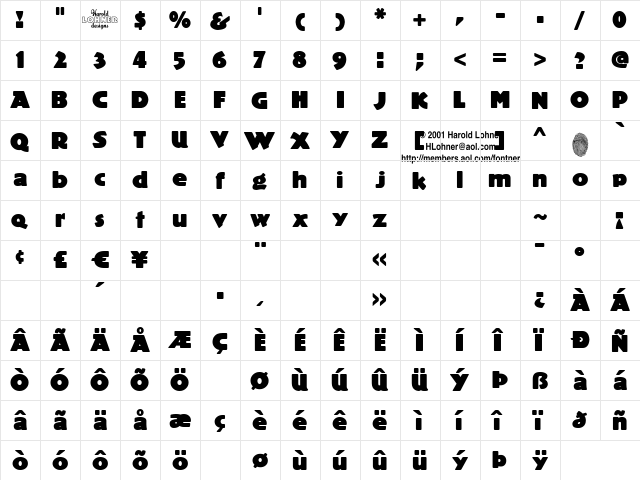
Pub Smooth Regular Font Preview
Pub Smooth Regular
Design Context for Pub Smooth Typeface
Pub Smooth is a composed and adaptable typeface that performs quietly and consistently across a wide range of design contexts.